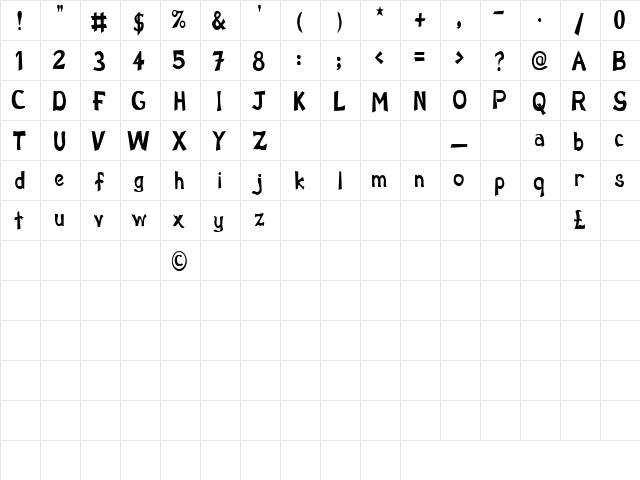
Lyon 1 Regular
Design Context for Lyon 1 Typeface
Lyon 1 is a composed and adaptable typeface that performs quietly and consistently across a wide range of design contexts.